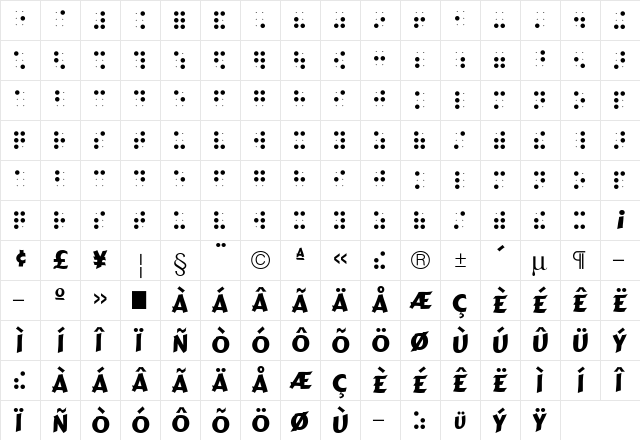
blistabraille6+ Regular
Design Context for blistabraille6+ Typeface
blistabraille6+ is a composed and adaptable typeface that performs quietly and consistently across a wide range of design contexts.